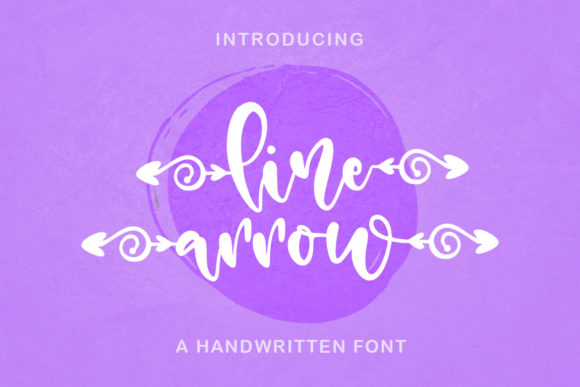
Immerse yourself in the enchanting world of Line Arrow Font, a cursive masterpiece that dances and swirls before your eyes. Its hand-crafted glyphs and effortless swashes invite you to unleash your creativity, promising to elevate your designs with an unmatched elegance.
Whether you're crafting heartfelt love letters, penning captivating stories, or designing timeless logos, Line Arrow Font will transform your words into works of art. Its PUA encoding grants you seamless access to a treasure trove of swashes and alternative characters, empowering you to customize your creations with infinite possibilities.
Indulge in the allure of Line Arrow Font, where imagination takes flight and every word becomes a masterpiece. Let its graceful curves and captivating charm weave a spell on your designs, leaving an unforgettable mark on the hearts and minds of your audience.